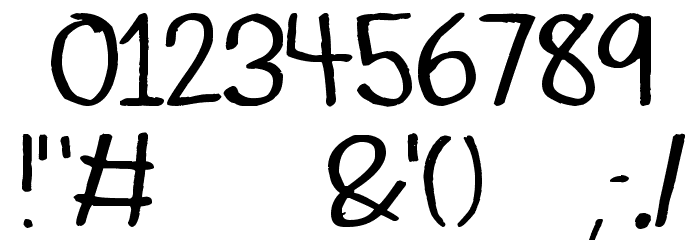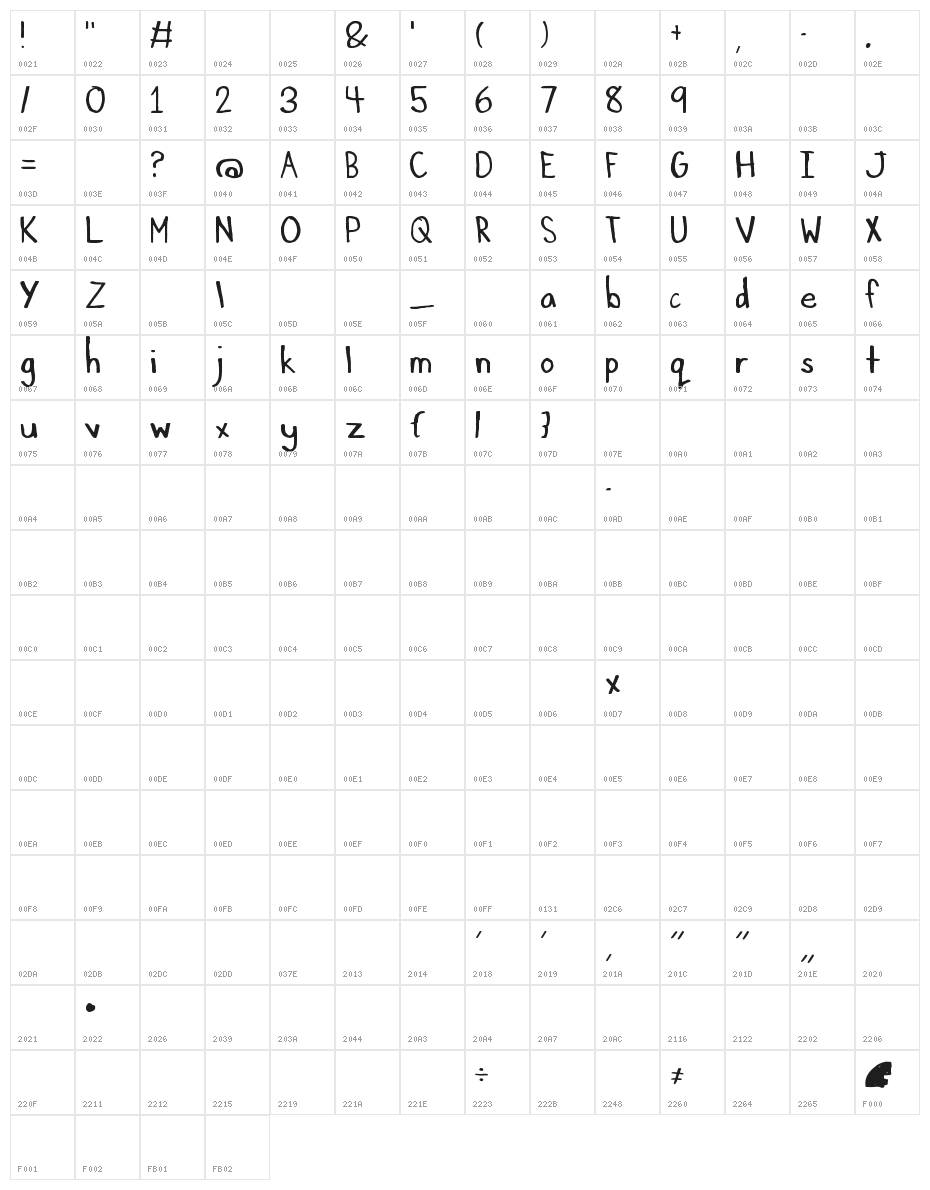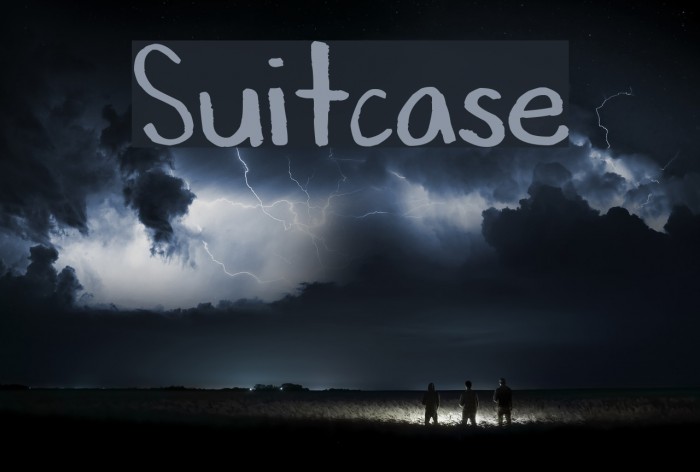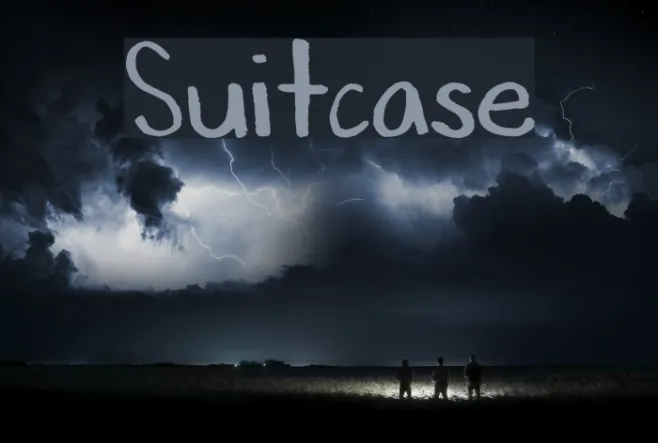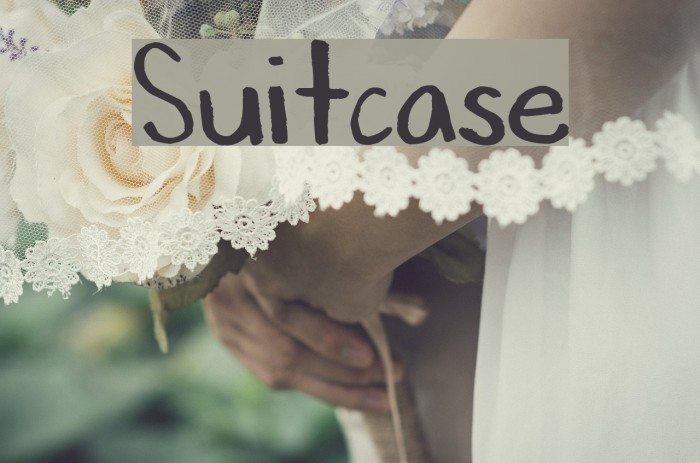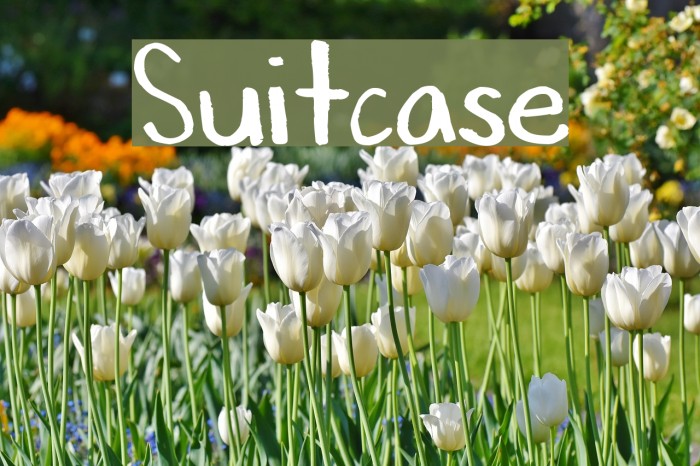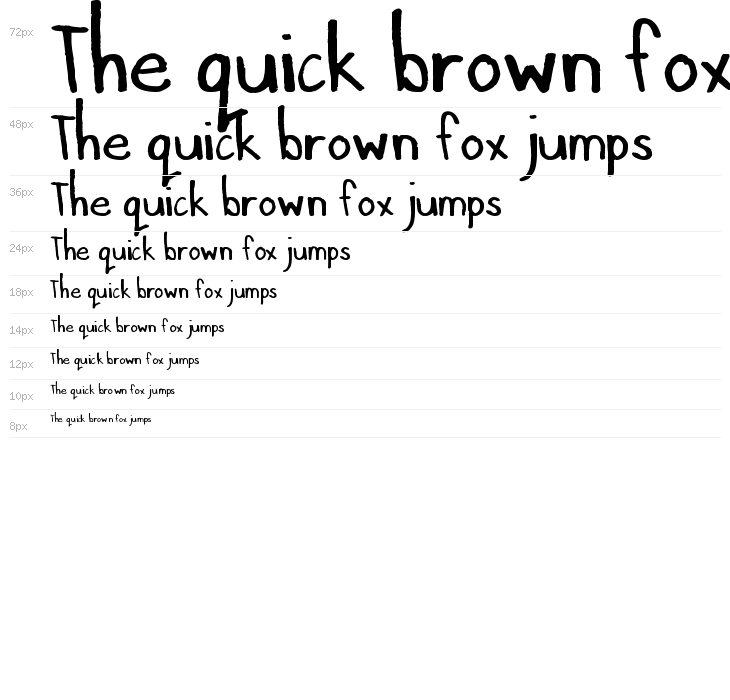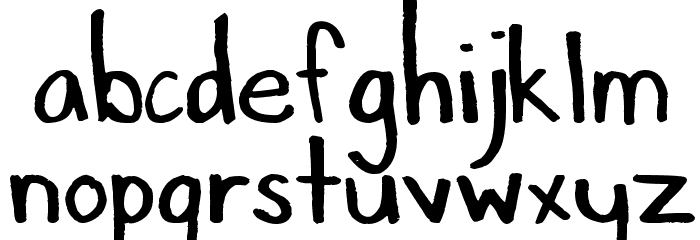
Suitcase Font
Suitcase Description
This font features a playful and casual handwritten style, characterized by its uneven strokes and slightly irregular letterforms. The uppercase and lowercase letters maintain a consistent flow, giving it a friendly and approachable appearance. The numbers and special characters are crafted with the same informal touch, making them blend seamlessly with the alphabet. The overall design is reminiscent of hand-drawn text, which adds a personal and warm feel to any project. Its unique charm lies in the subtle imperfections that mimic natural handwriting, making it ideal for projects that require a human touch.